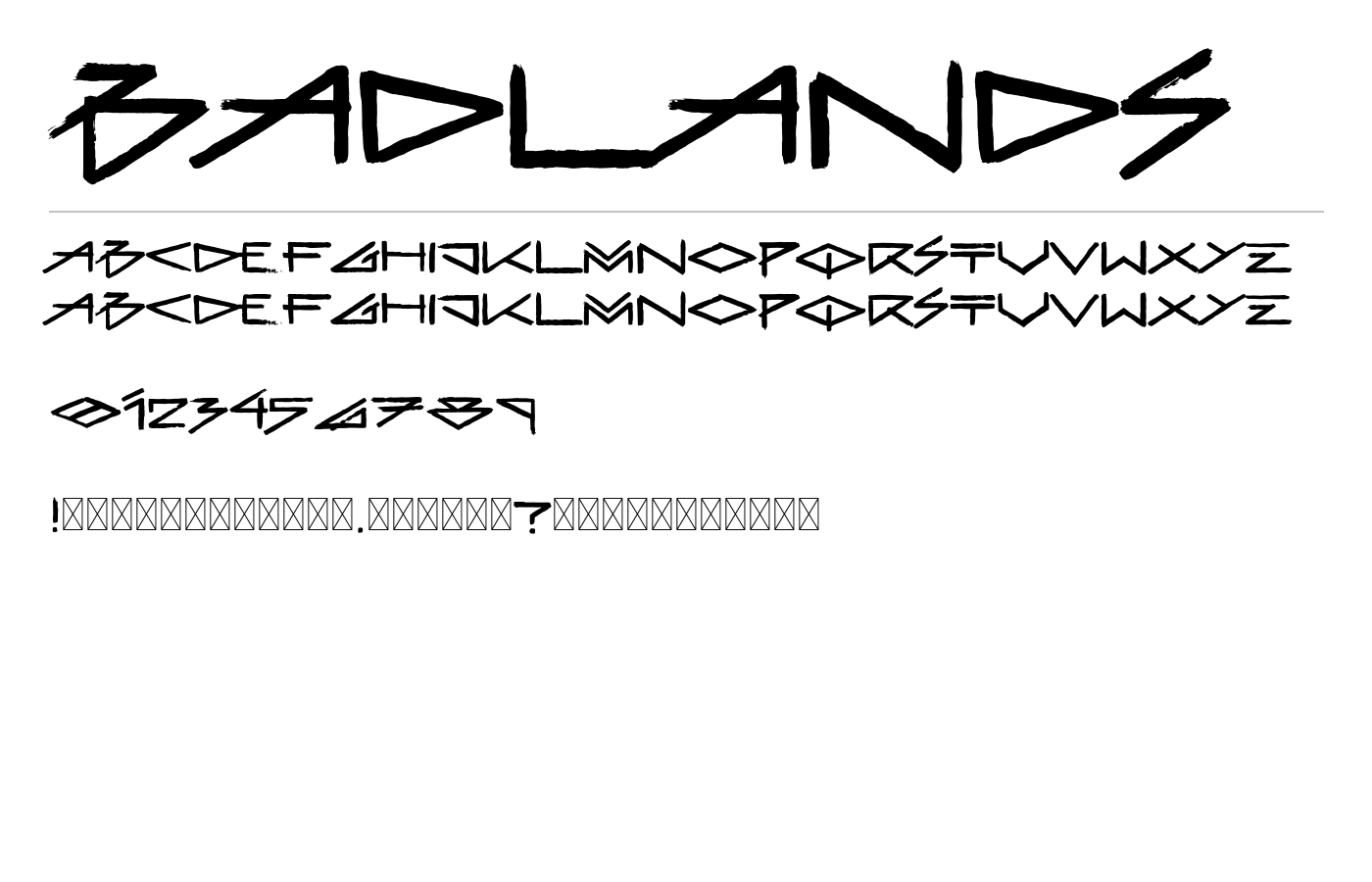
Badlands is a bold, edgy sans serif font with a hand-drawn, brushstroke style that conveys energy and rawness. Its angular, slightly rough letterforms create a striking and modern look, making it ideal for attention-grabbing headlines, posters, or branding that seeks a rebellious, adventurous vibe. This font works best in creative or urban contexts where a distinctive, dynamic personality is needed.
Badlands Font
About Badlands Font
| Font family | Badlands Font |
| Designer | Jason Ferry |